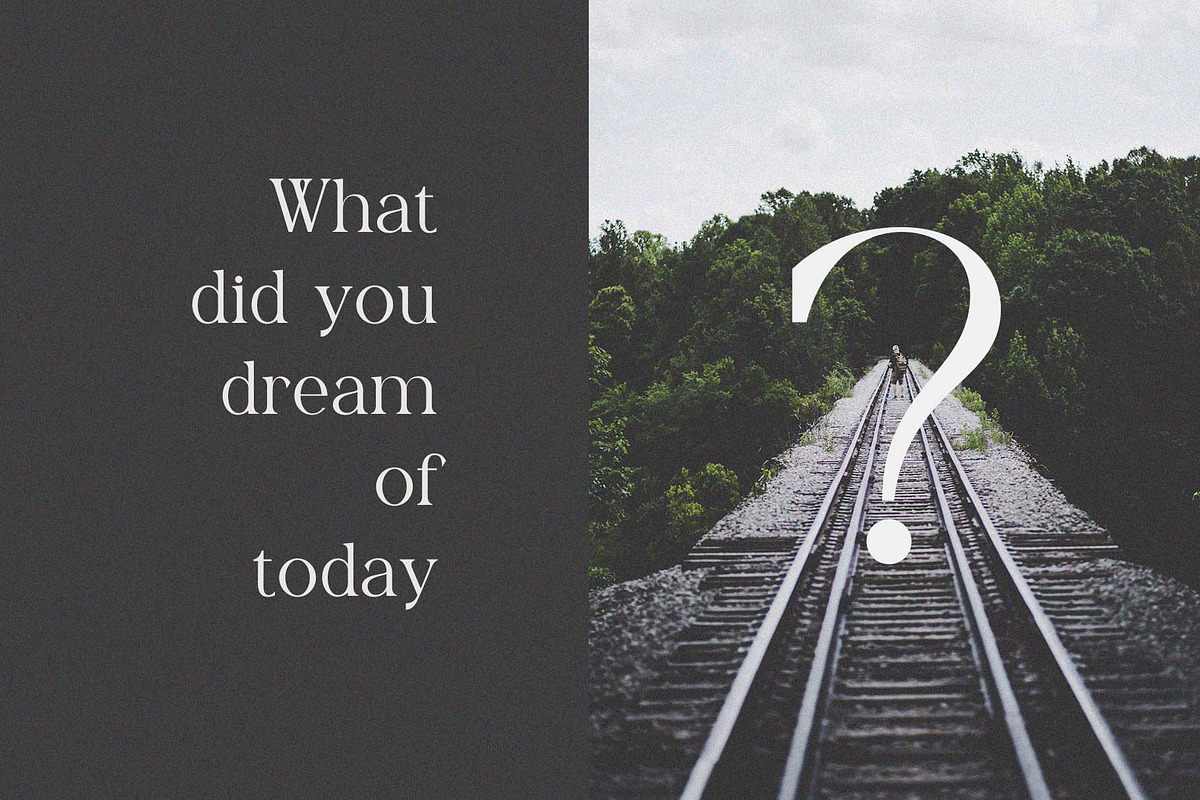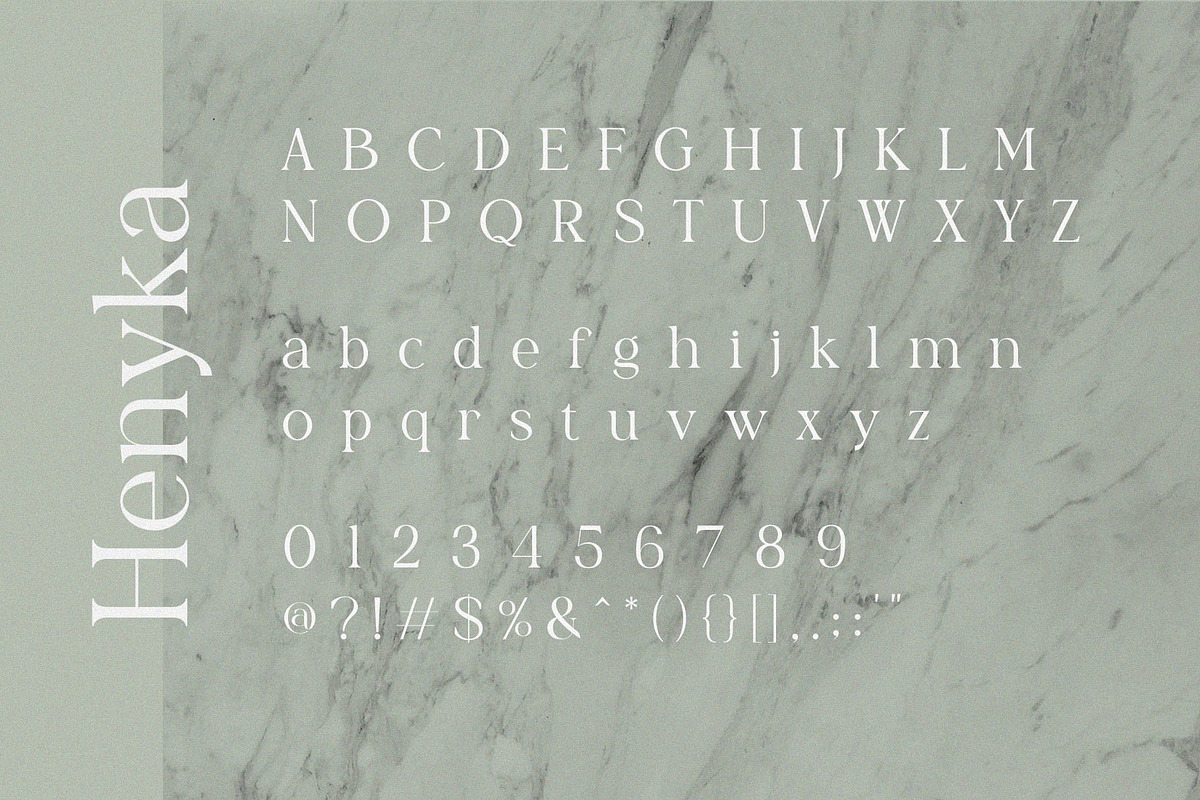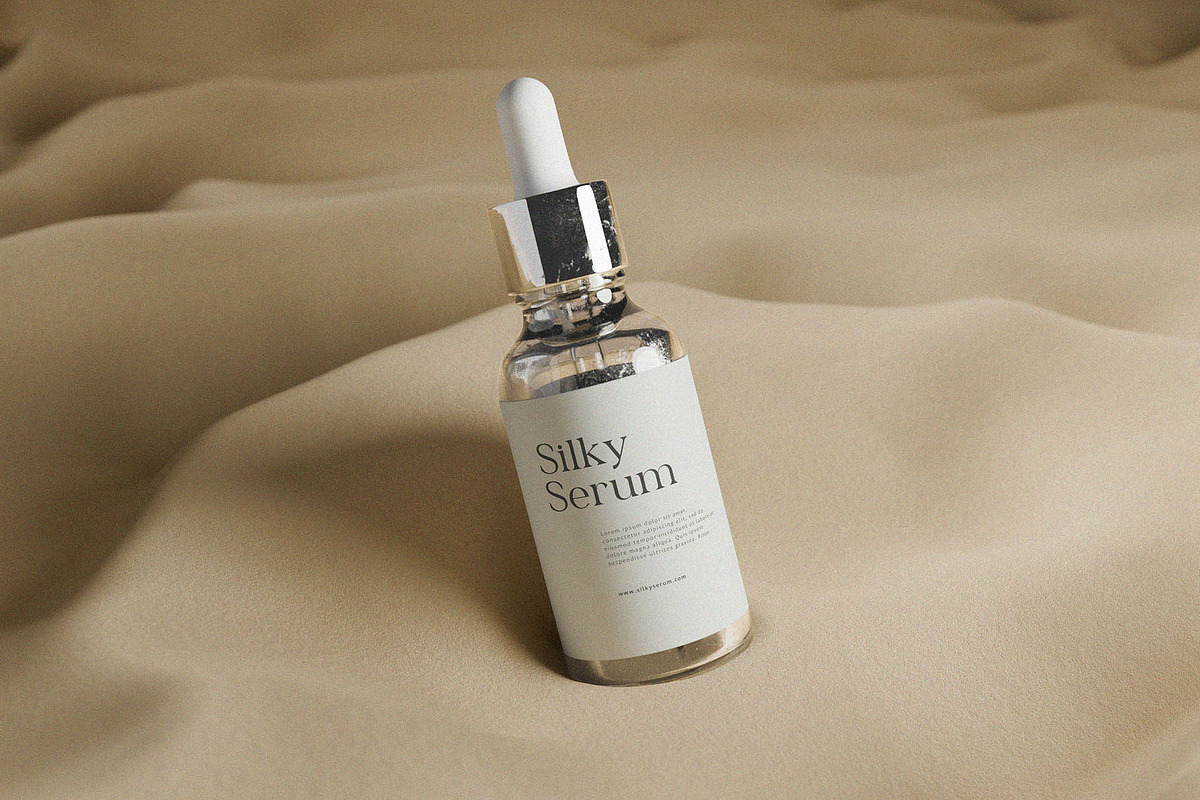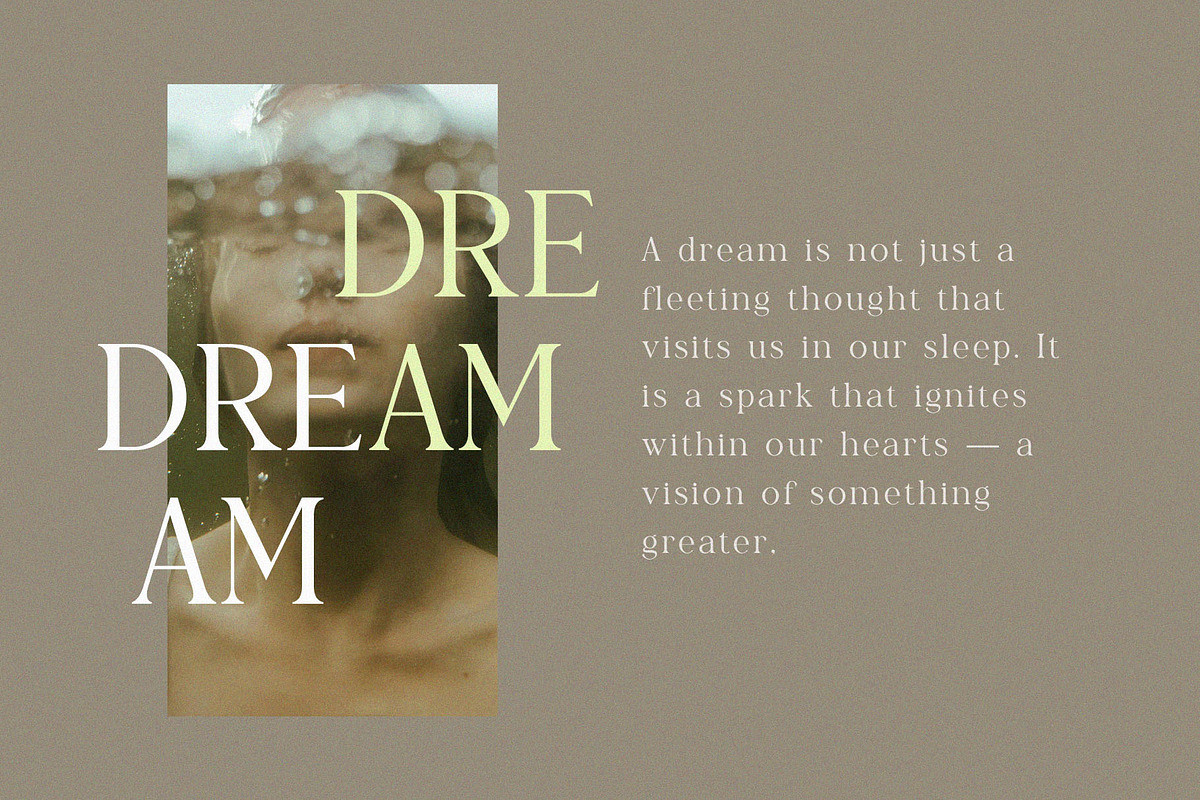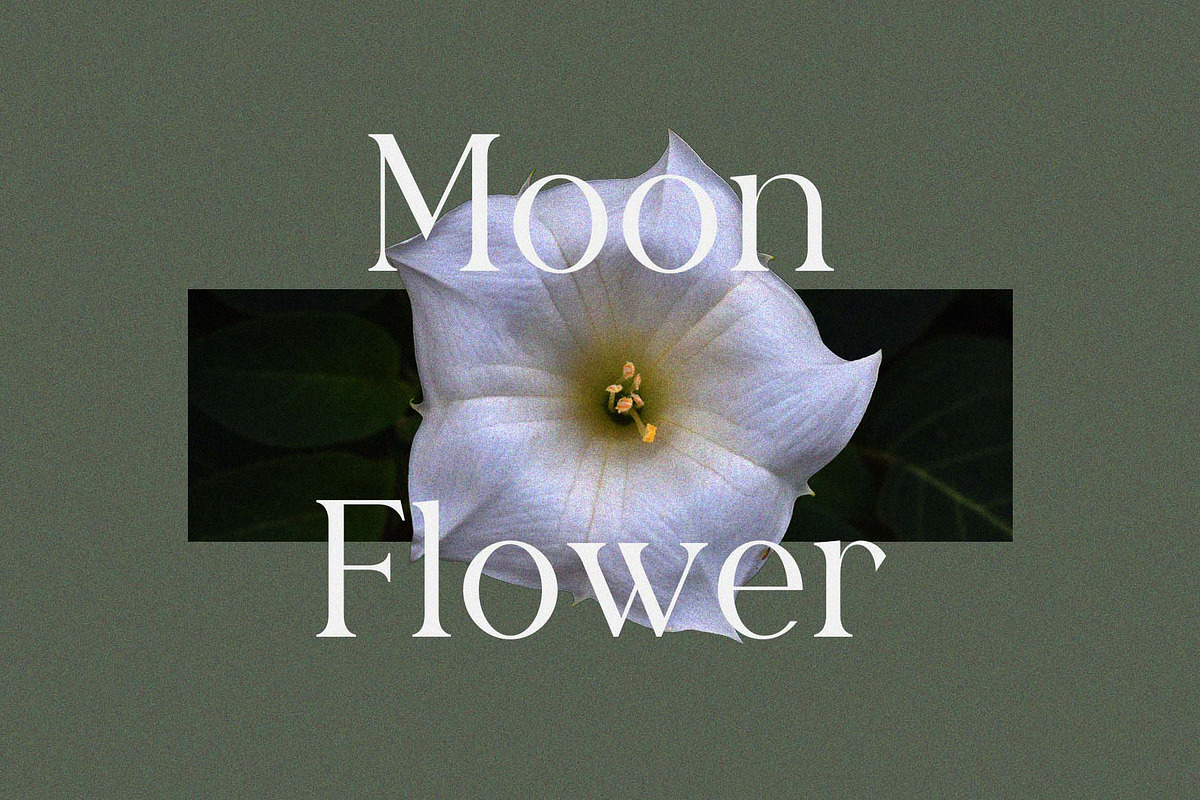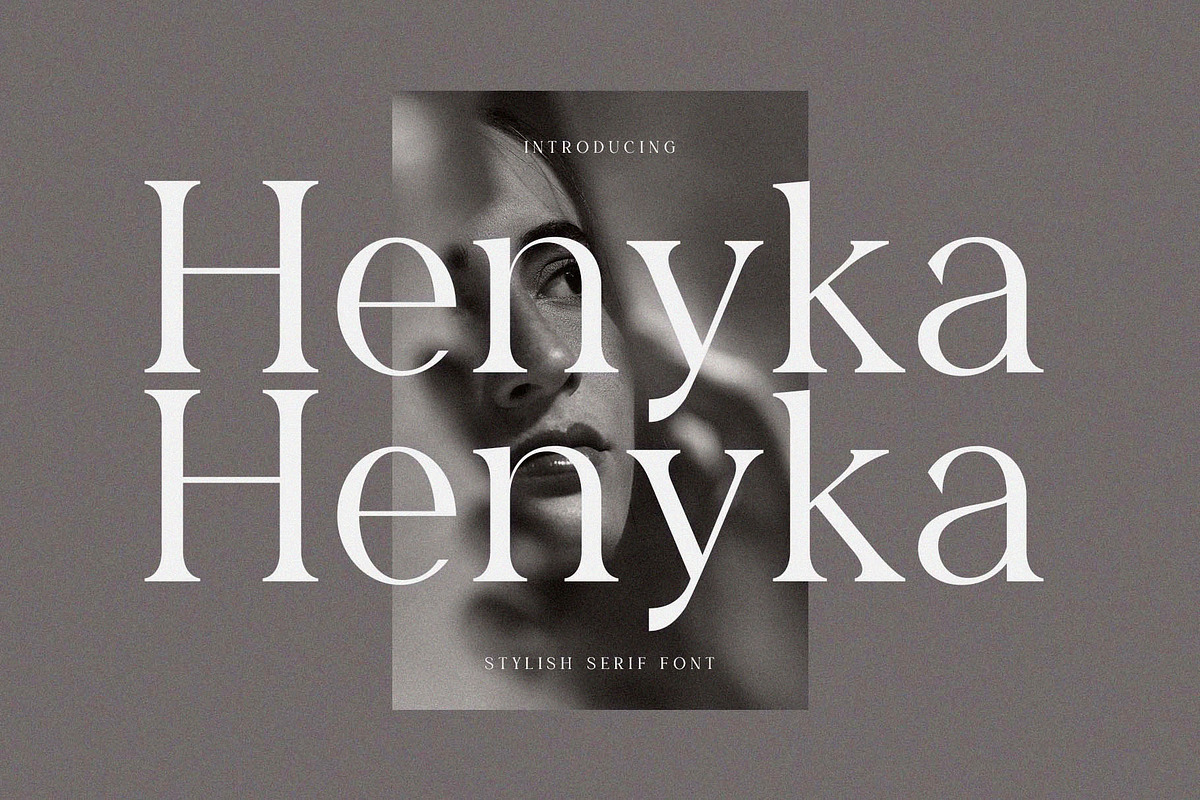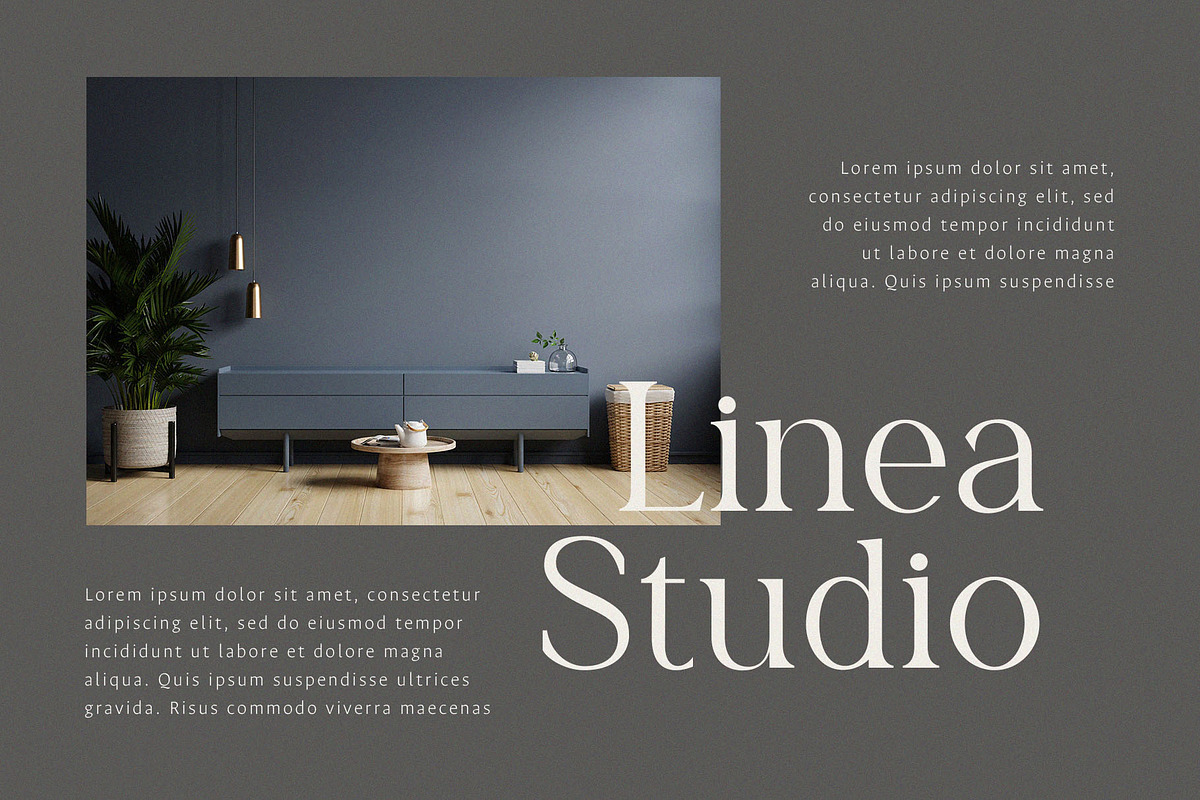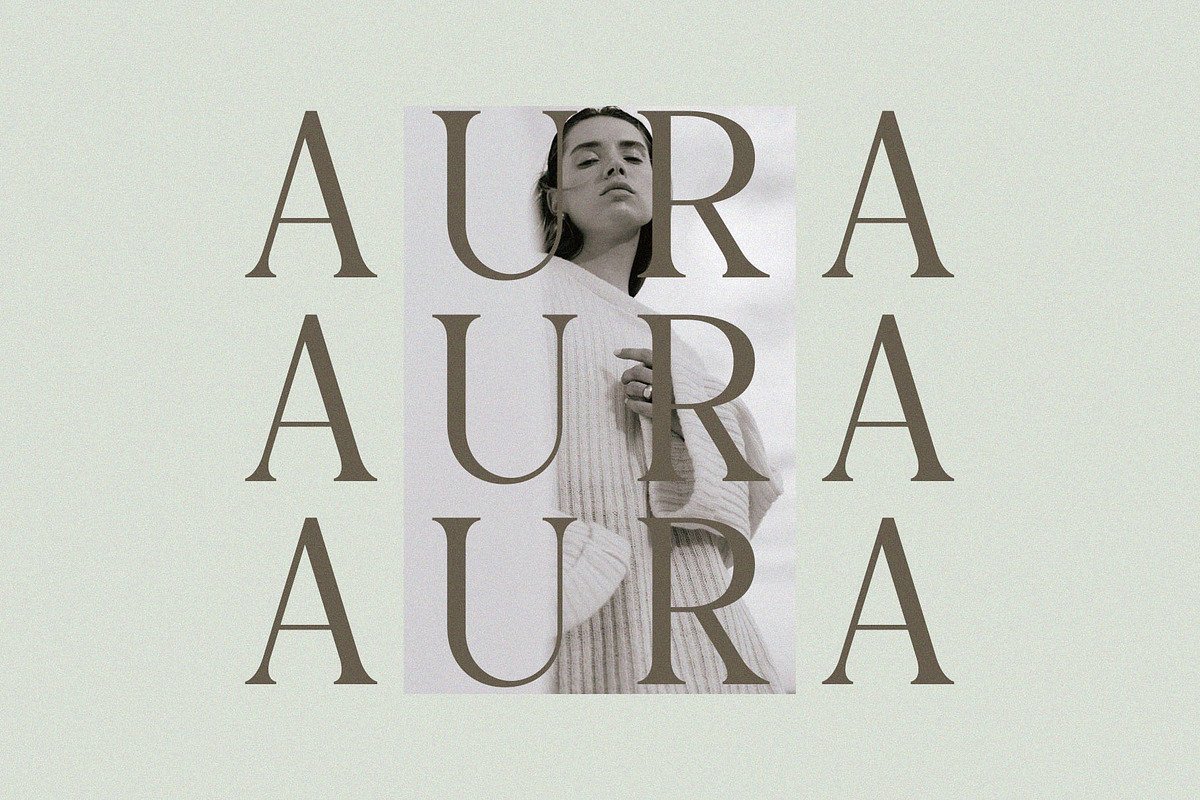
Henyka – Stylish Serif Font
Introducing Henyka Elegant Serif Font. Henyka is a modern and classy typeface, best used as a display for headings, logos, branding, magazines, product packaging and invitations. Henyka come with clean lines and smooth curves give any project an extra touch of class.